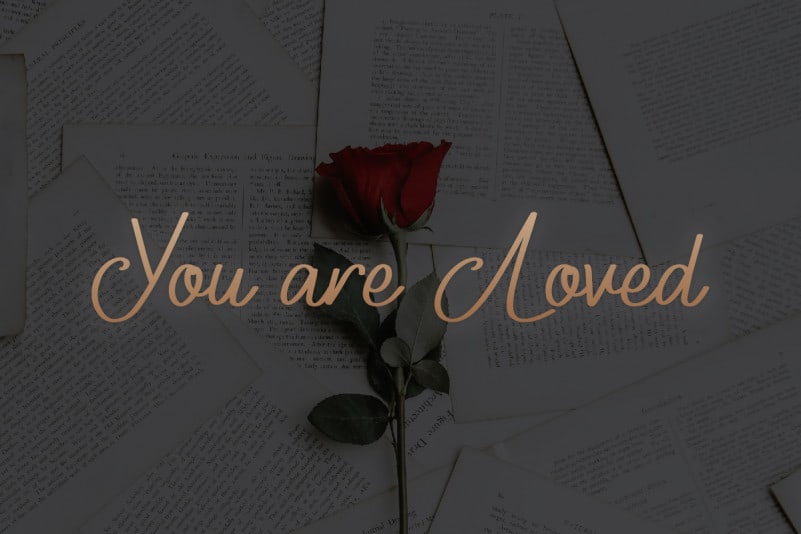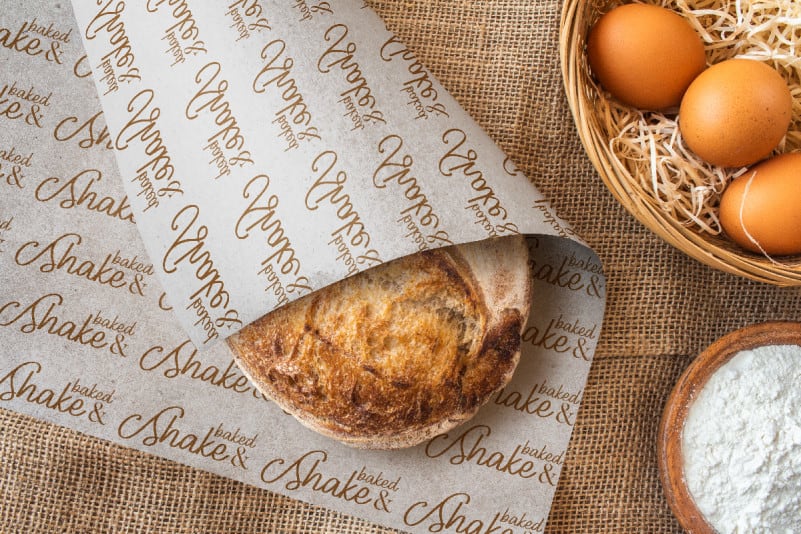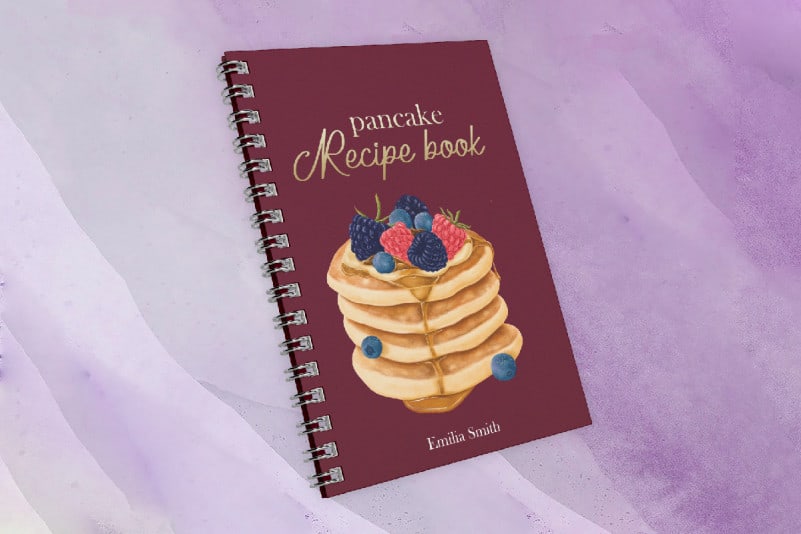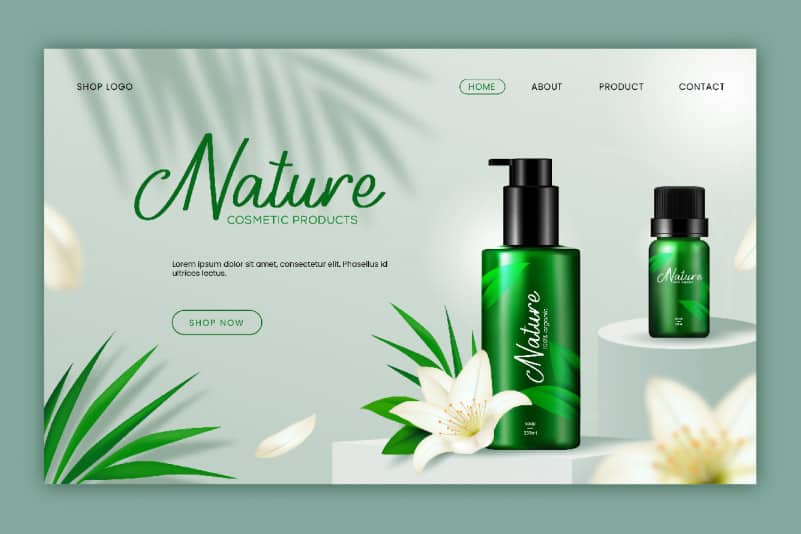
Next Time Script Font
Next Time Script Font is a beautiful handwriting font with unique hand lettering style. This font is crafted carefully in every its single scratch, created to look as close to a natural handwritten script so that it can create the perfect combination on each glyph. When we make this font, we really want to create a touch that is so free-flowing that it gives a natural impression on its use later. We made a special tails on the characters so the font characters will be unique and exclusive. This awesome script is for anyone who are needing of uniqueness and stylish on their designs.
Next Time Script Font includes full set of Uppercase and Lowercase Basic Characters, Numerals and Punctuation. Also it contains ligatures and alternates characters to perfectly make natural handwriting look that add more beautiful and aesthetic fonts to perfect your extraordinary project. Next Time Font will be awesome for wedding, engagement, branding, invitations, florist, hair stylish, makeup artist, event organizer, movie, music, festival, promotions, social media etc